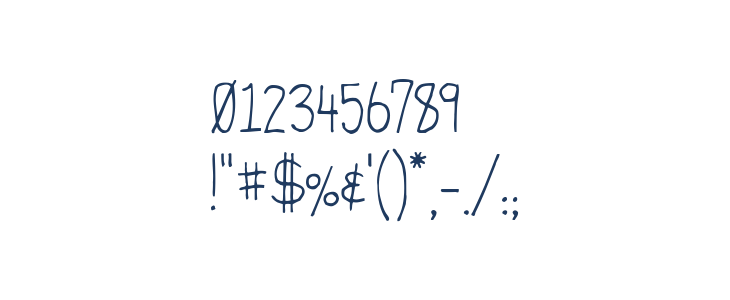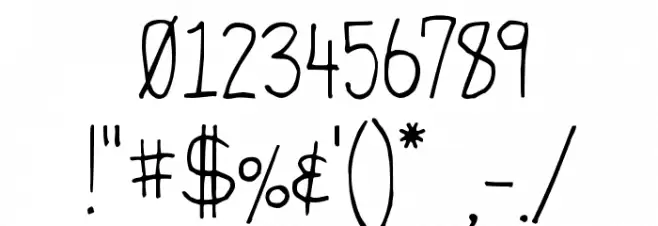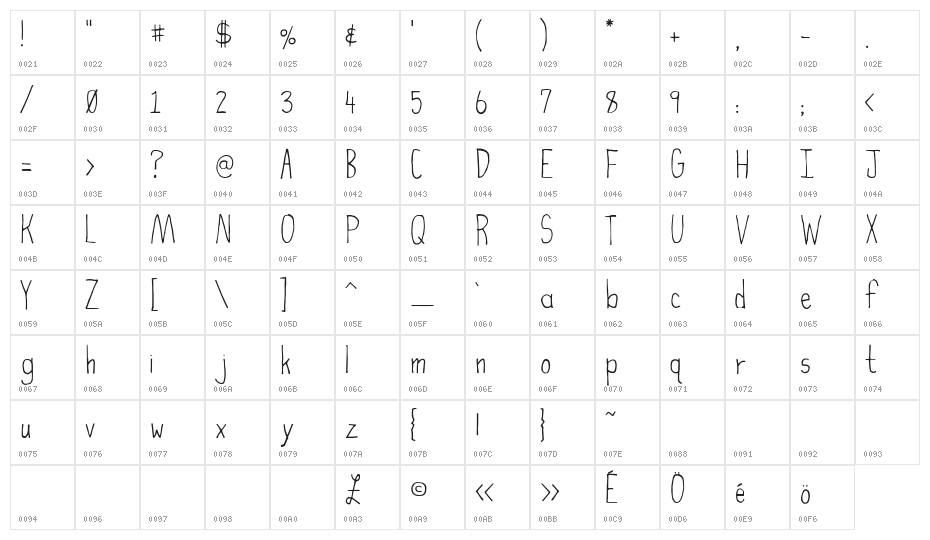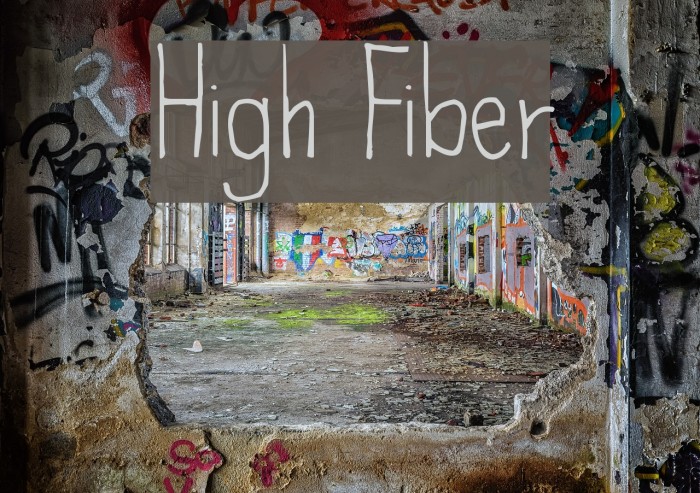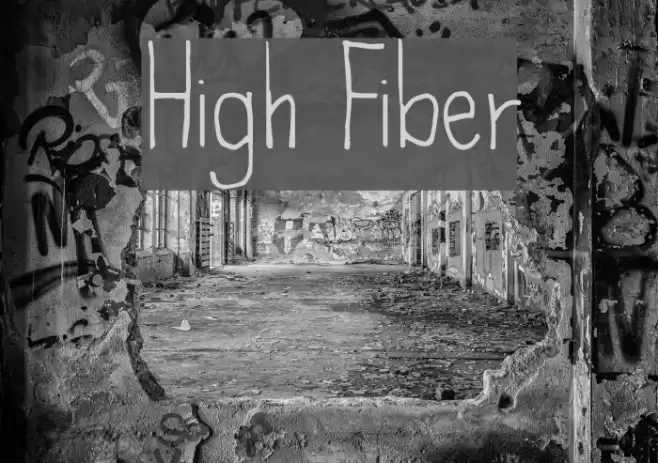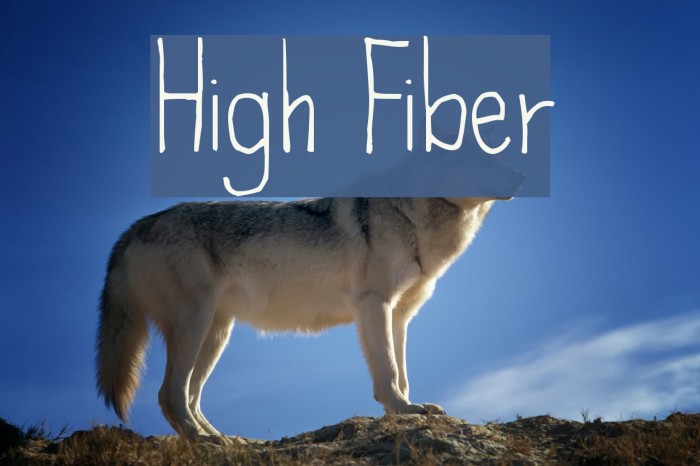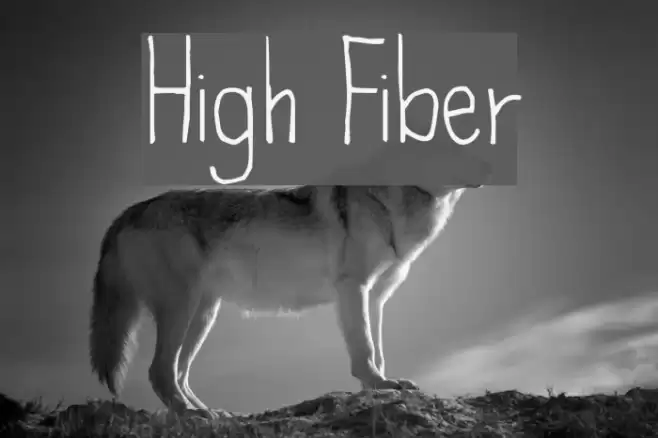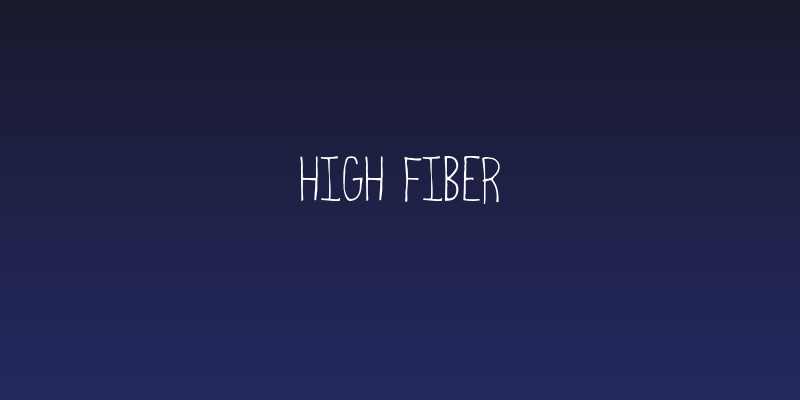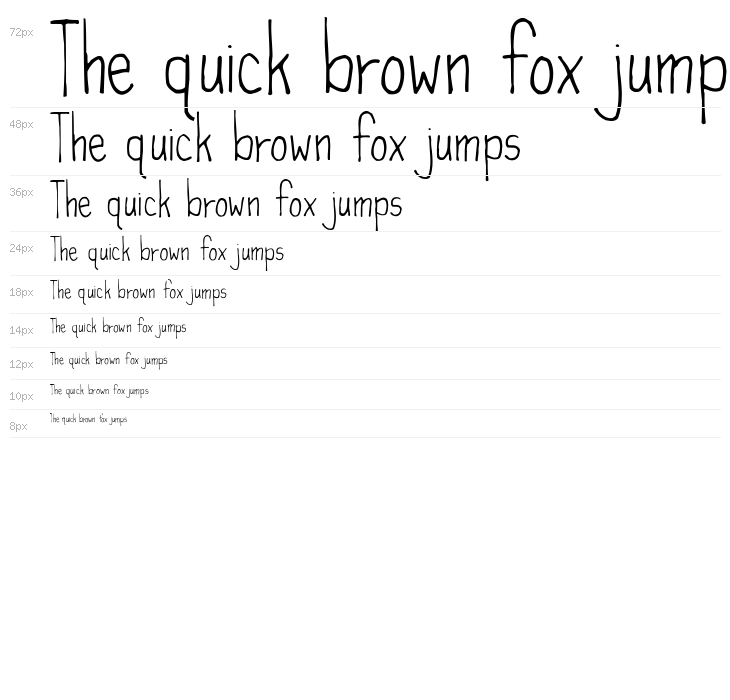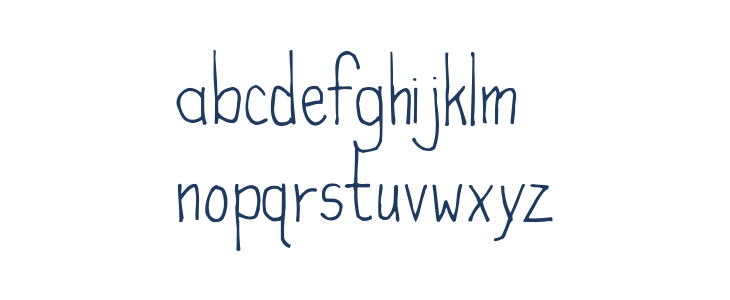
High Fiber Font
High Fiber Description
This font features a playful and informal handwritten style, characterized by its tall, narrow letters and slightly irregular strokes. The uppercase and lowercase letters maintain a consistent height, giving it a cohesive look. The numbers and special characters follow the same whimsical style, making it suitable for creative and casual applications. The strokes are thin and uniform, providing a clean appearance without much variation in thickness. This font exudes a friendly and approachable vibe, perfect for projects that require a personal touch.